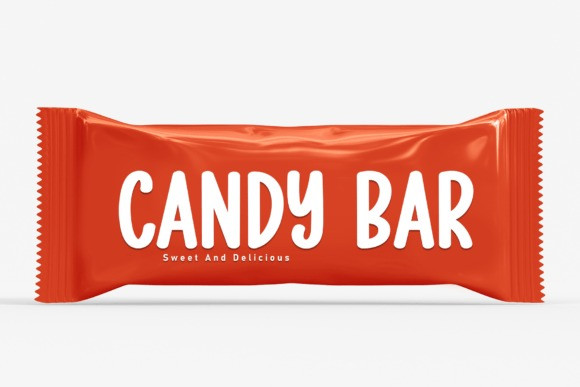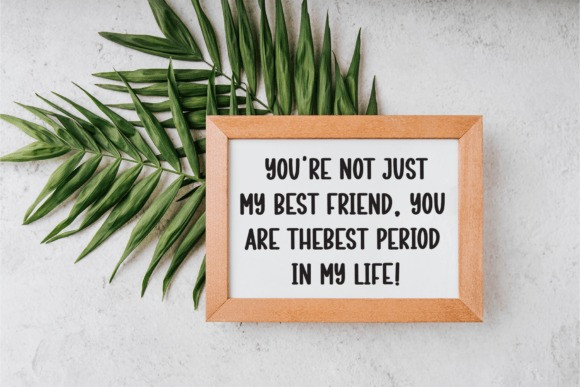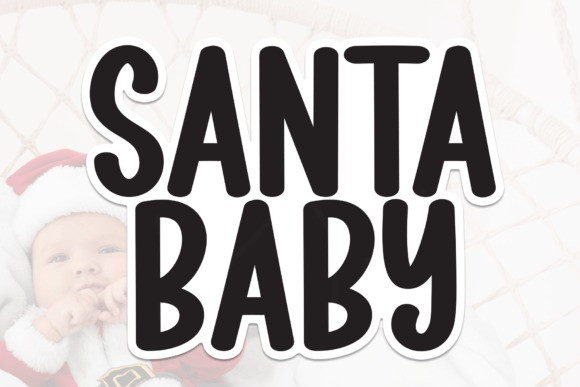
Santa Baby Display Font
Santa Baby Display Font is a sweet and friendly handwritten font. Its natural and unique style makes it incredibly fitting to a large pool of designs. The only limit is your imagination!